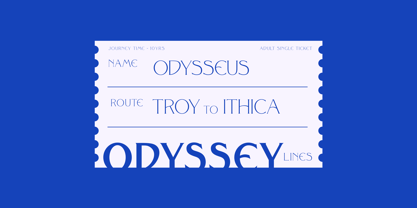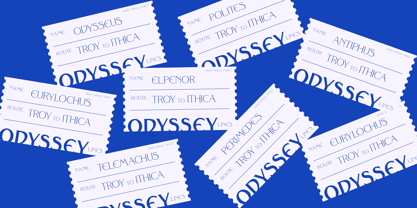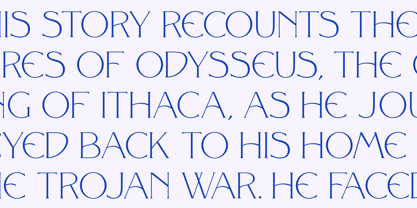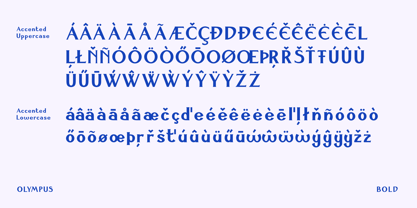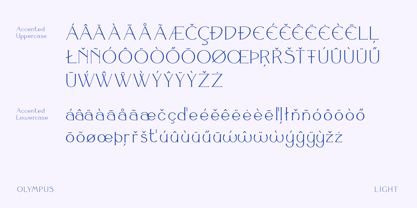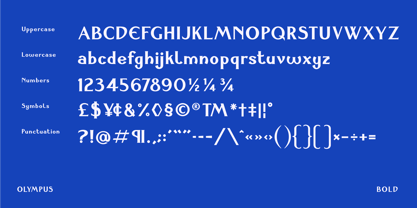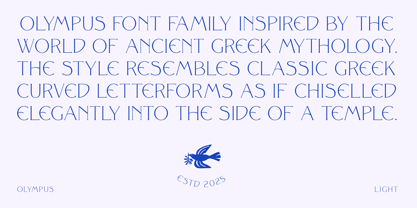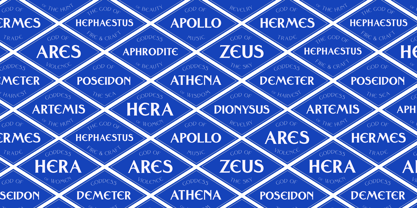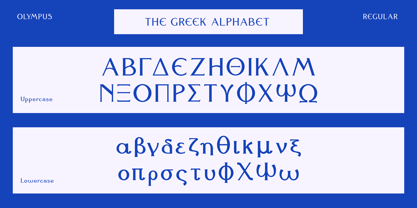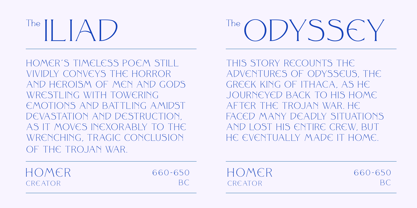
Olympus
by Hemphill Type
The Olympus Font Family was designed by Ed Hemphill and published by Hemphill Type. Olympus contains 5 styles and family package options.
The Olympus font family is inspired by the world of ancient Greek mythology. The heavenly abode of the twelve gods or olympians, Mount Olympus is at the centre of many of the ancient Greek Myths and is often depicted as a place of divine peace. The look and feel of the typeface has a certain elegance and resembles classical Greek curved letterforms as if chiselled into the side of a Greek temple.